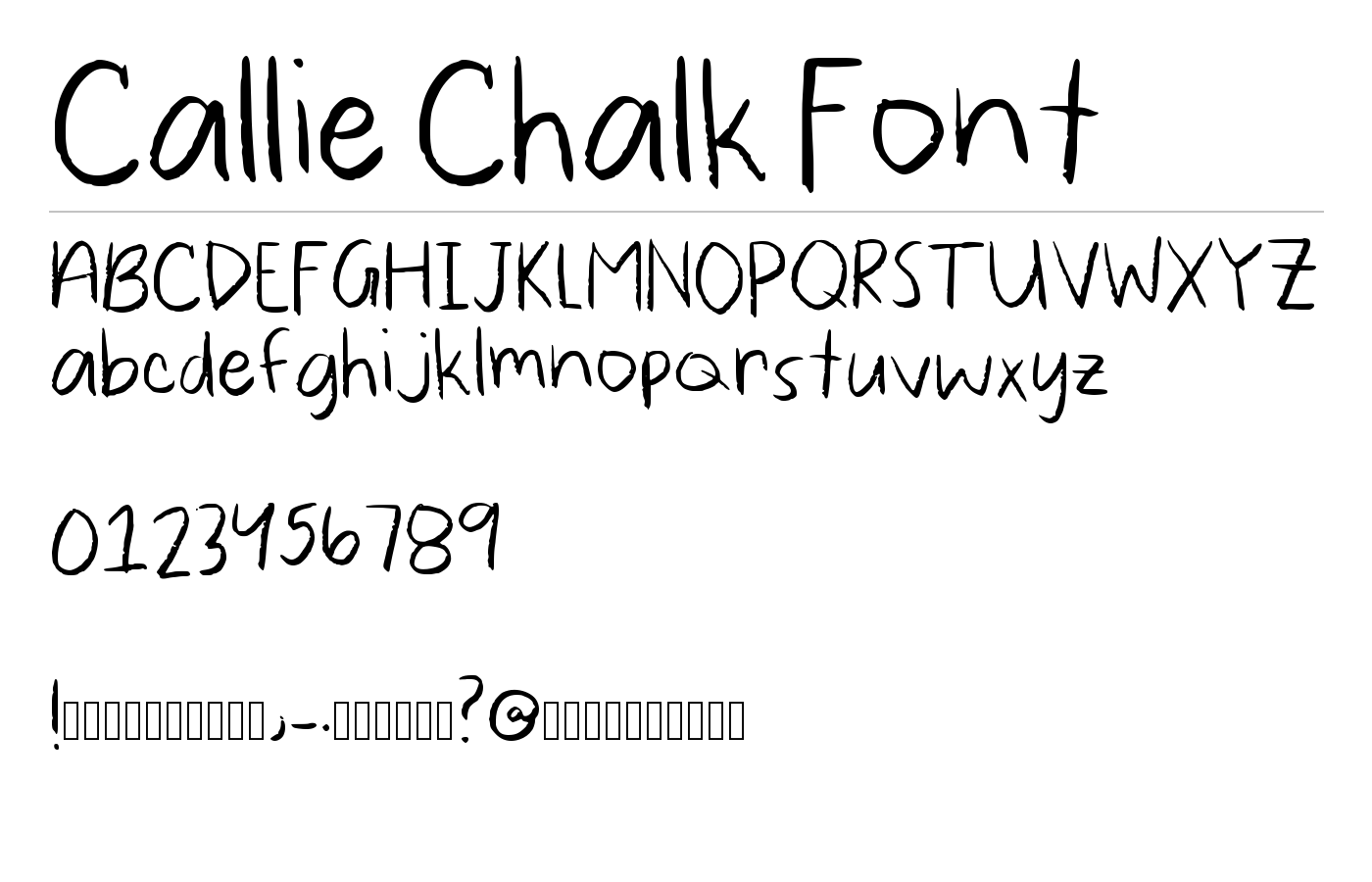
Callie Chalk is a playful handwritten sans serif font that mimics the texture and irregularity of chalk writing. Its light weight, uneven strokes, and casual character shapes create a friendly and informal vibe, making it ideal for creative, educational, and child-focused designs. This font works well for headlines, posters, and branding where a personal, approachable touch is desired.
Callie Chalk Font
About Callie Chalk Font